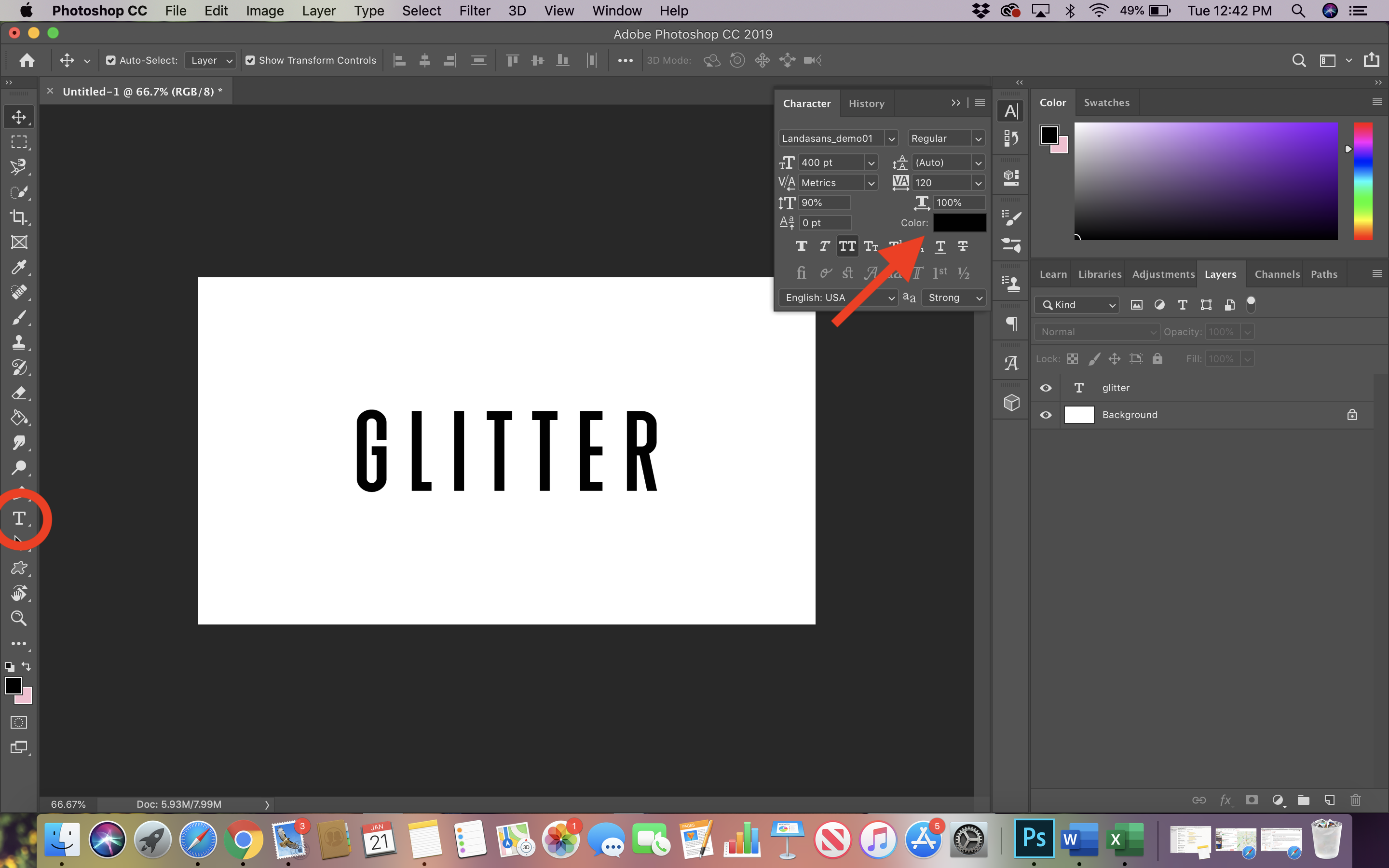
How To Make Glitter Font In Photoshop . This text effect works great on both white and.   learn how to create glitter text in photoshop using a bunch of layer styles.  glitter text tutorial in photoshop:   i will show you how to make your own sparkle glitter gold texture.   in this glitter text photoshop tutorial, i'll show you all of the different ways you can add glitter to your text.   in this tutorial you will learn how to create a beautiful glitter text effect in photoshop using some basic layer styles and any glitter texture that you choose. Being an intermediate graphic designer and multimedia generalist, glitter text font is common with design request. I have also added some sparkle brushes to make the text more shiny. Photoshop clipping masks make creating. See how quickly and easily you can create a glossy, glitter text effect. In this instructable, i will show the steps to achieve glitter text font as a graphic. Quick tips episode #001 learn how to make glittery text in photoshop.
in this tutorial you will learn how to create a beautiful glitter text effect in photoshop using some basic layer styles and any glitter texture that you choose. In this instructable, i will show the steps to achieve glitter text font as a graphic.   in this glitter text photoshop tutorial, i'll show you all of the different ways you can add glitter to your text. Photoshop clipping masks make creating.  glitter text tutorial in photoshop: Quick tips episode #001 learn how to make glittery text in photoshop. See how quickly and easily you can create a glossy, glitter text effect.   i will show you how to make your own sparkle glitter gold texture. I have also added some sparkle brushes to make the text more shiny.   learn how to create glitter text in photoshop using a bunch of layer styles.
How To Make Glitter Font In Photoshop  Quick tips episode #001 learn how to make glittery text in photoshop. Quick tips episode #001 learn how to make glittery text in photoshop.   learn how to create glitter text in photoshop using a bunch of layer styles. This text effect works great on both white and. I have also added some sparkle brushes to make the text more shiny. Being an intermediate graphic designer and multimedia generalist, glitter text font is common with design request.   in this glitter text photoshop tutorial, i'll show you all of the different ways you can add glitter to your text. Photoshop clipping masks make creating.   i will show you how to make your own sparkle glitter gold texture. In this instructable, i will show the steps to achieve glitter text font as a graphic.  glitter text tutorial in photoshop: See how quickly and easily you can create a glossy, glitter text effect.   in this tutorial you will learn how to create a beautiful glitter text effect in photoshop using some basic layer styles and any glitter texture that you choose.
Glitter Styles For Tutorial (DOWNLOAD FREE SAMPLE) YouTube How To Make Glitter Font In Photoshop    learn how to create glitter text in photoshop using a bunch of layer styles.   in this glitter text photoshop tutorial, i'll show you all of the different ways you can add glitter to your text.  glitter text tutorial in photoshop: Photoshop clipping masks make creating. Being an intermediate graphic designer and multimedia generalist, glitter text font is. How To Make Glitter Font In Photoshop.
How to Make Glitter Text in YouTube How To Make Glitter Font In Photoshop    i will show you how to make your own sparkle glitter gold texture. See how quickly and easily you can create a glossy, glitter text effect. This text effect works great on both white and.  glitter text tutorial in photoshop: In this instructable, i will show the steps to achieve glitter text font as a graphic.   learn. How To Make Glitter Font In Photoshop.
how to make glitter text in How To Make Glitter Font In Photoshop  See how quickly and easily you can create a glossy, glitter text effect. This text effect works great on both white and. Photoshop clipping masks make creating. I have also added some sparkle brushes to make the text more shiny.  glitter text tutorial in photoshop: In this instructable, i will show the steps to achieve glitter text font as. How To Make Glitter Font In Photoshop.
Easy Glitter in for Backgrounds, Patterns & Text Effects How To Make Glitter Font In Photoshop  Quick tips episode #001 learn how to make glittery text in photoshop. I have also added some sparkle brushes to make the text more shiny. Photoshop clipping masks make creating.   i will show you how to make your own sparkle glitter gold texture.  glitter text tutorial in photoshop: Being an intermediate graphic designer and multimedia generalist, glitter text. How To Make Glitter Font In Photoshop.
Glitter Text Tutorial in Trybotics How To Make Glitter Font In Photoshop    i will show you how to make your own sparkle glitter gold texture. See how quickly and easily you can create a glossy, glitter text effect. This text effect works great on both white and.  glitter text tutorial in photoshop:   learn how to create glitter text in photoshop using a bunch of layer styles. Quick tips episode. How To Make Glitter Font In Photoshop.
Learn How to Create a Gold Glitter Text Effect in How To Make Glitter Font In Photoshop  In this instructable, i will show the steps to achieve glitter text font as a graphic. Quick tips episode #001 learn how to make glittery text in photoshop.   learn how to create glitter text in photoshop using a bunch of layer styles.   in this tutorial you will learn how to create a beautiful glitter text effect in photoshop. How To Make Glitter Font In Photoshop.
Glitter Fonts For How To Make Glitter Font In Photoshop  Quick tips episode #001 learn how to make glittery text in photoshop.  glitter text tutorial in photoshop: Photoshop clipping masks make creating.   in this tutorial you will learn how to create a beautiful glitter text effect in photoshop using some basic layer styles and any glitter texture that you choose.   in this glitter text photoshop tutorial, i'll. How To Make Glitter Font In Photoshop.
How to make glitter text in How To Make Glitter Font In Photoshop   glitter text tutorial in photoshop: Quick tips episode #001 learn how to make glittery text in photoshop. In this instructable, i will show the steps to achieve glitter text font as a graphic. This text effect works great on both white and. Being an intermediate graphic designer and multimedia generalist, glitter text font is common with design request. I. How To Make Glitter Font In Photoshop.
How to make glitter text in How To Make Glitter Font In Photoshop   glitter text tutorial in photoshop: This text effect works great on both white and. Being an intermediate graphic designer and multimedia generalist, glitter text font is common with design request. Quick tips episode #001 learn how to make glittery text in photoshop.   learn how to create glitter text in photoshop using a bunch of layer styles.   i. How To Make Glitter Font In Photoshop.